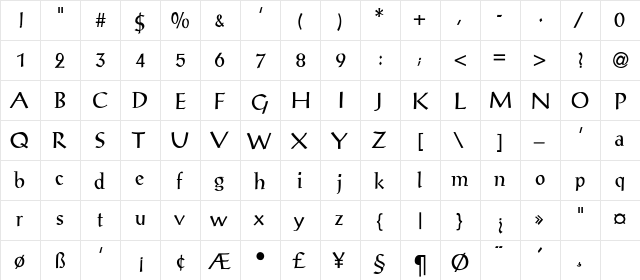
PostAntiqua-Light Regular
Design Context for PostAntiqua-Light Typeface
PostAntiqua-Light takes a measured approach to typography — its balanced proportions and neutral character make it a reliable workhorse for both digital and print work. Its slender proportions lend an understated elegance to any composition.